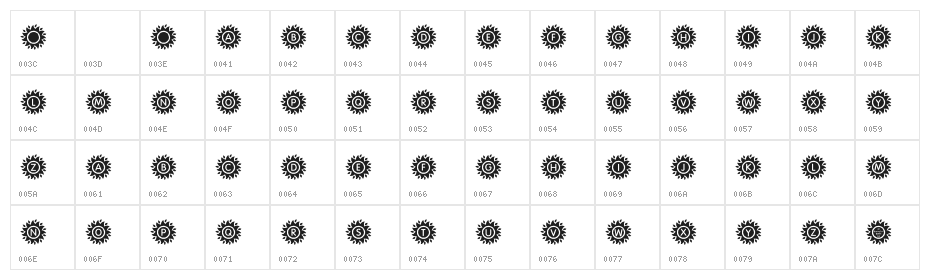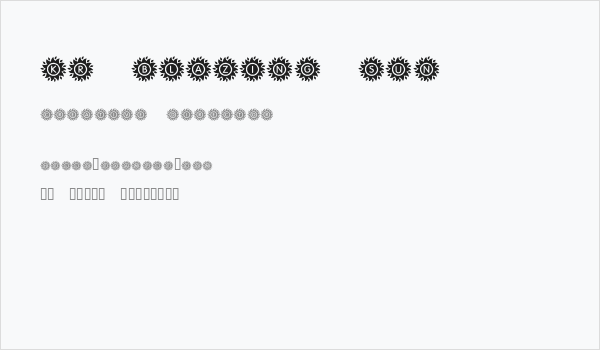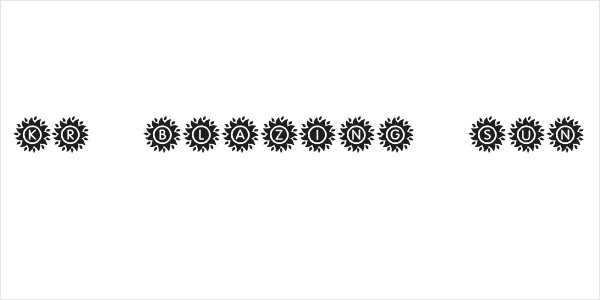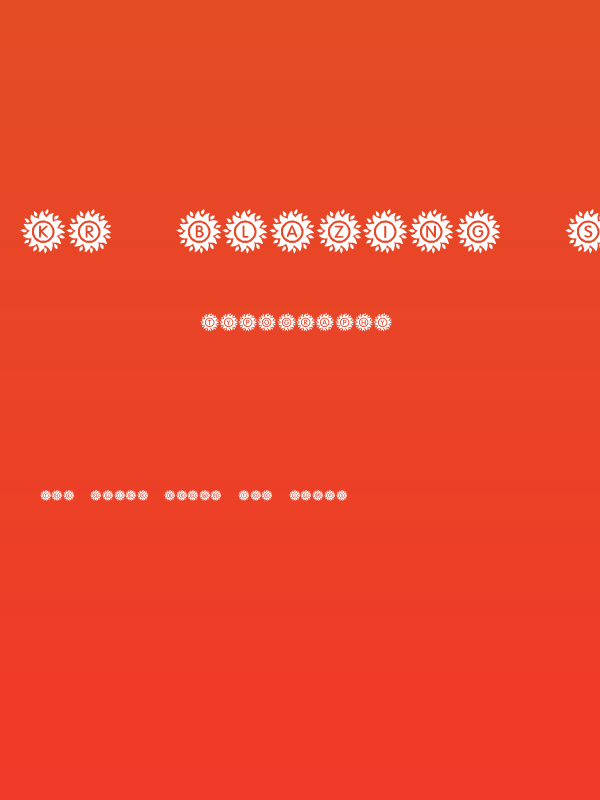
KR Blazing Sun Font
KR Blazing Sun Description
This font features a unique design where each character is encased within a stylized sunburst shape, giving it a bold and eye-catching appearance. The letters are uppercase and maintain a consistent size, creating a uniform look across the alphabet. The sunburst adds a decorative element that makes the font stand out, ideal for projects that require a striking visual impact. The characters are evenly spaced, ensuring readability despite the intricate design. This font is perfect for creative and artistic projects where a playful yet impactful style is desired.
| Proposed Projects | Ideal for posters, event invitations, children's book covers, and any project needing a playful and bold design. |